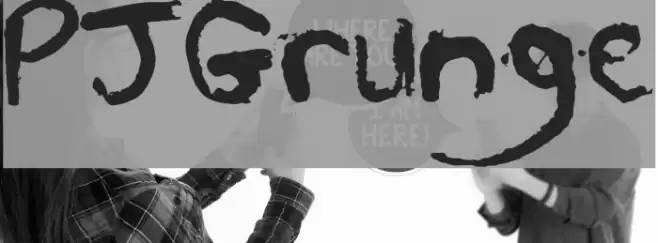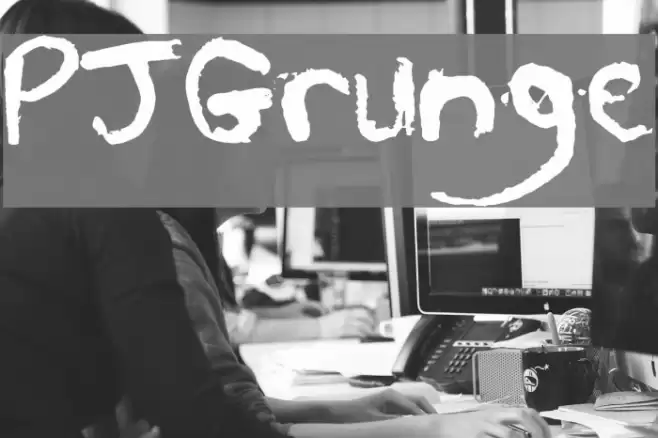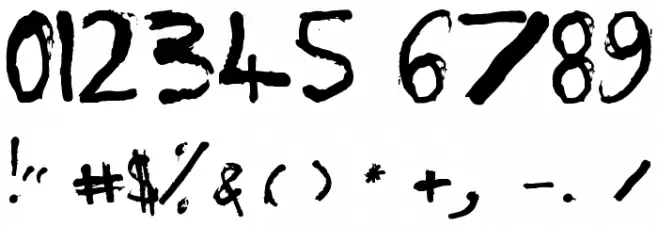
PJGrunge Font
PJGrunge Description
This font embodies a rugged, distressed aesthetic, reminiscent of grunge and street art styles. The characters are irregular and appear hand-drawn, with uneven strokes and a rough texture that gives them a raw, edgy feel. The uppercase and lowercase letters maintain a consistent style, with a noticeable variation in thickness and form, adding to the font's dynamic and expressive nature. The numerals and special characters follow the same design principles, ensuring a cohesive look across all glyphs. This font is ideal for projects that require a bold, unconventional statement, such as album covers, posters, or any creative work that seeks to capture an urban, rebellious spirit.
A rugged, hand-drawn font with a grunge aesthetic and irregular, textured strokes from Uncategorized fonts.
- Proposed Projects: Album covers, street art-inspired posters, edgy branding materials, creative event flyers.
- Overall Style: Grunge, Urban, Edgy